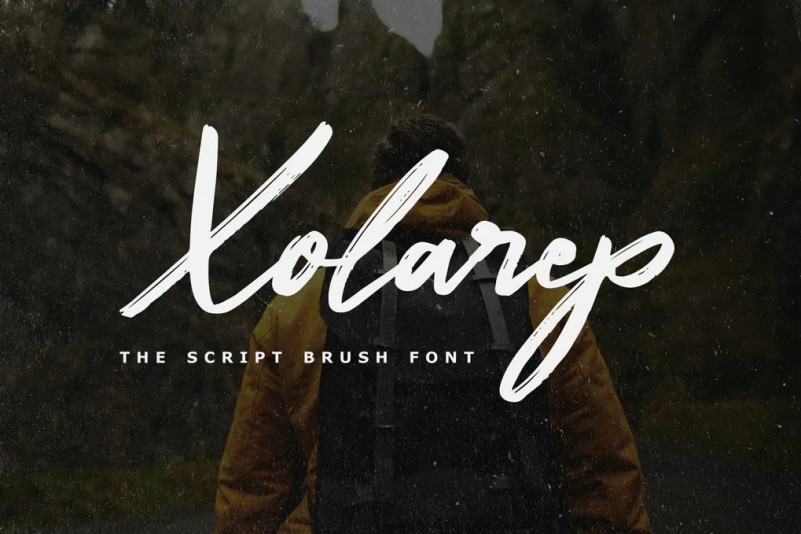
Xolarep Font
Introducing Xolarep – The Script Brush Font. It comes with an elegant and modern style which is perfect to make any design stand out! This font is perfect for branding, wedding invites, magazines, mugs, business cards, quotes, posters, and more.